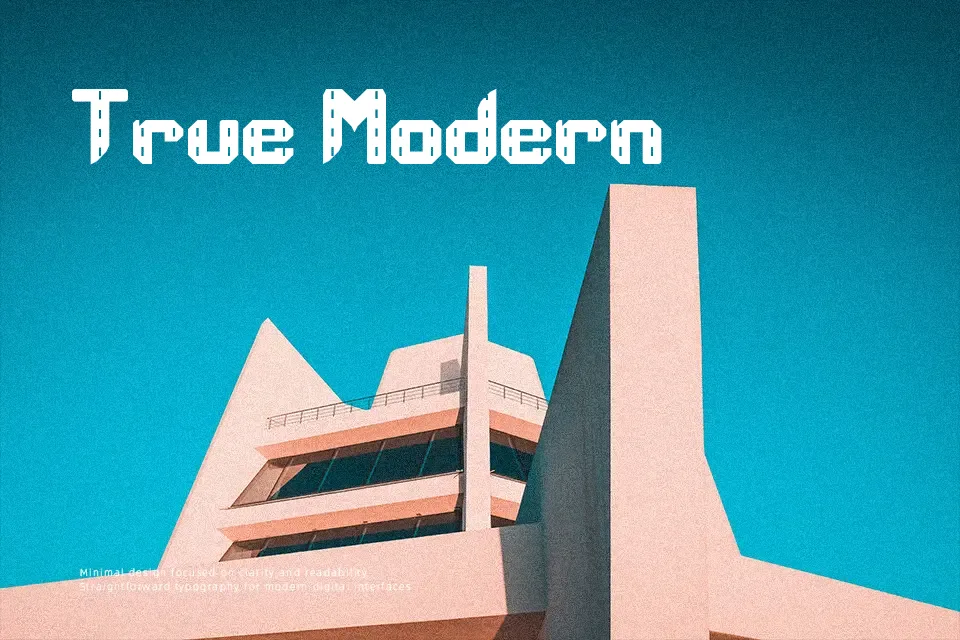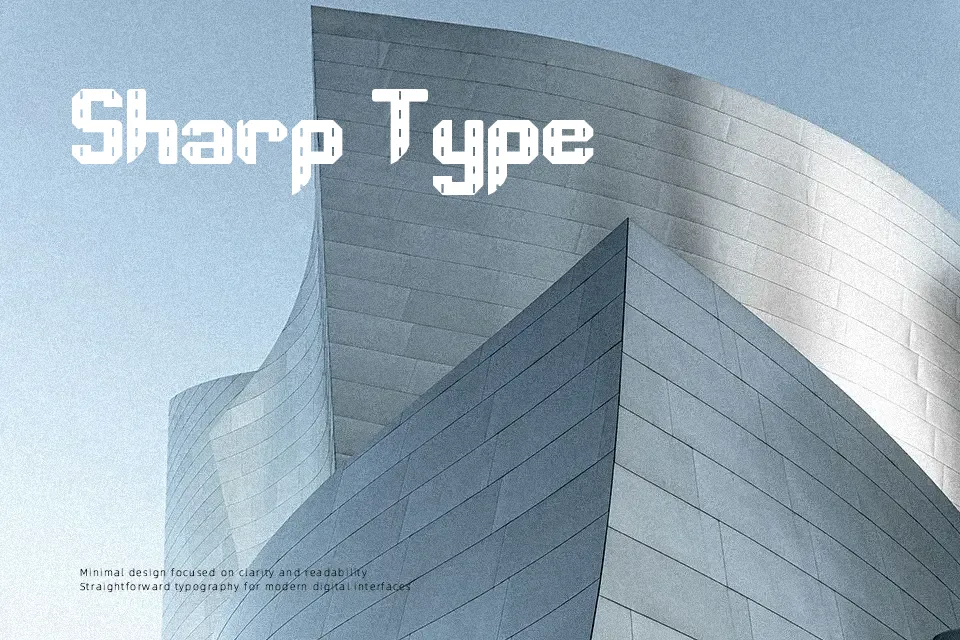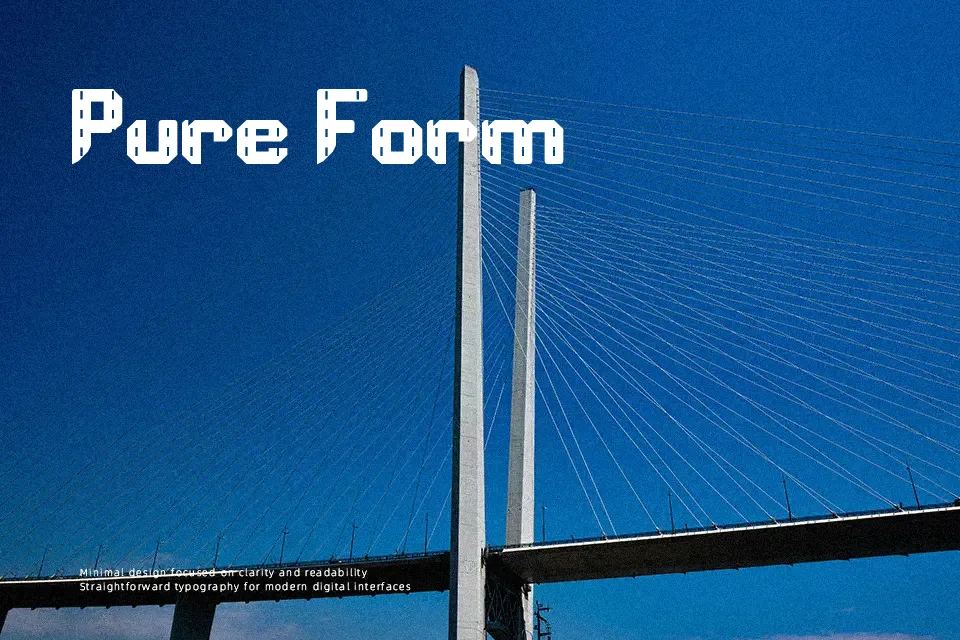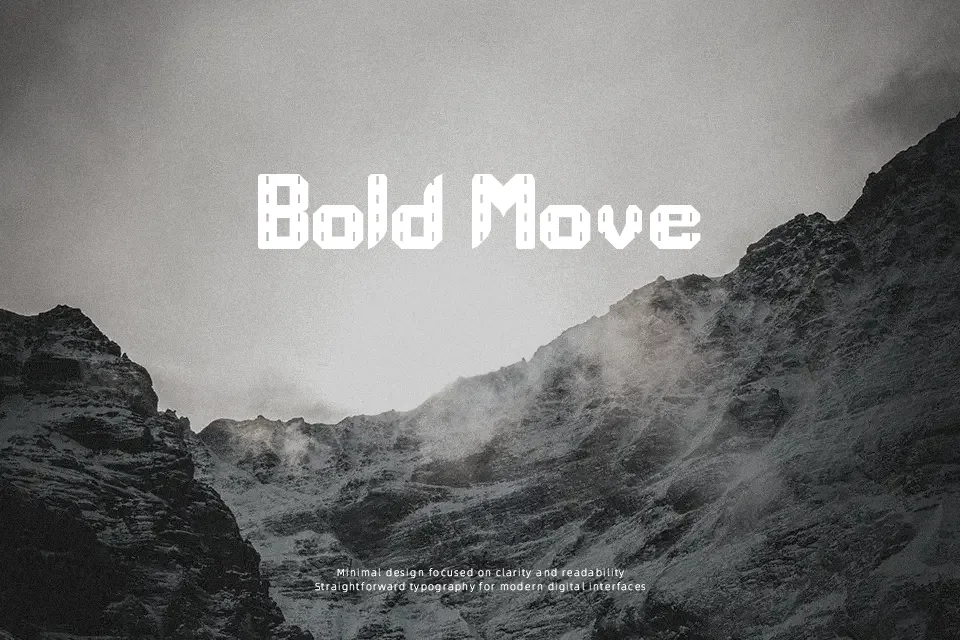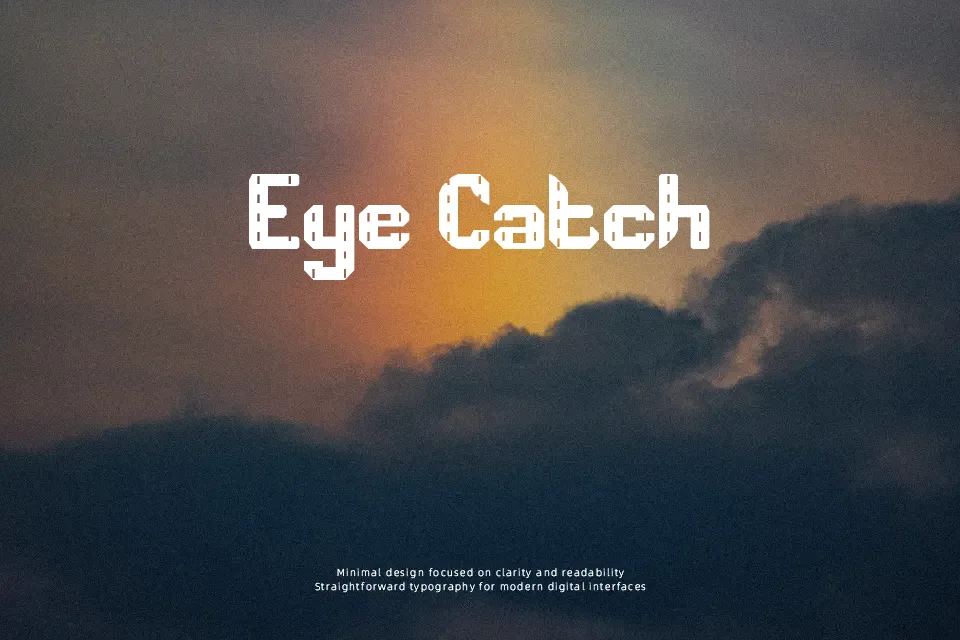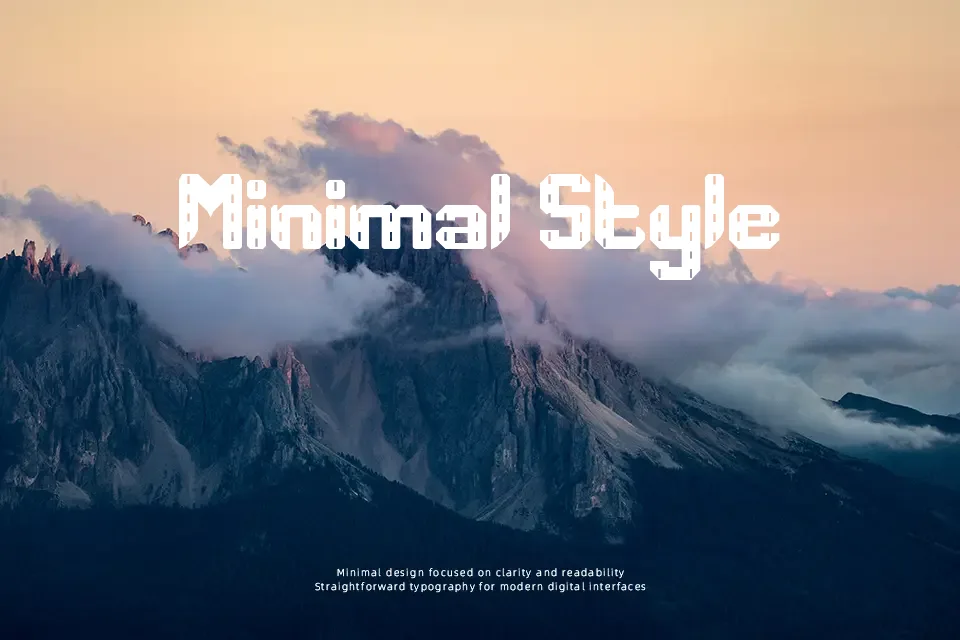
Road Track Font
Defined by aggressive structural lines, Road Track Font incorporates distinctive negative space to simulate highway striping. The letterforms are constructed with sharp, pointed terminals that establish a powerful forward momentum, giving the design an energetic presence. Thanks to these intense decorative details, the tight spacing helps maintain visual rhythm in larger headlines but significantly reduces clarity at smaller scales. This display typeface performs exceptionally well for motorsports branding, automotive apparel, and high-energy event posters where speed is a central theme. However, the complex internal cutouts compromise legibility in continuous reading environments, limiting its versatility.
motorsports branding
racing event posters
action sports logos
automotive apparel graphics
technical manuals
Perfect for branding, headline, and logo, with a creative and decorative style.